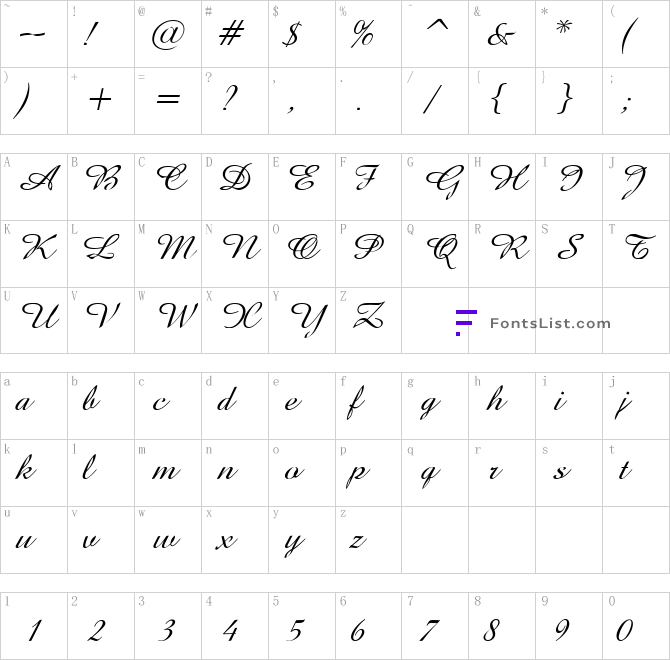
- Font Name:Amaze D
Amaze-D-Italic.ttf is a very beautiful artistic font, Amaze-D-Italic.ttf is widely used in the design and printing of various books and pictures,Amaze-D-Italic.ttf has a strong visual impact,Amaze-D-Italic.ttf is a commonly used font in newspapers, magazines and books, and is used in posters, e-commerce Poster design, store design, logo design, font design and other fields.Amaze-D-Italic.